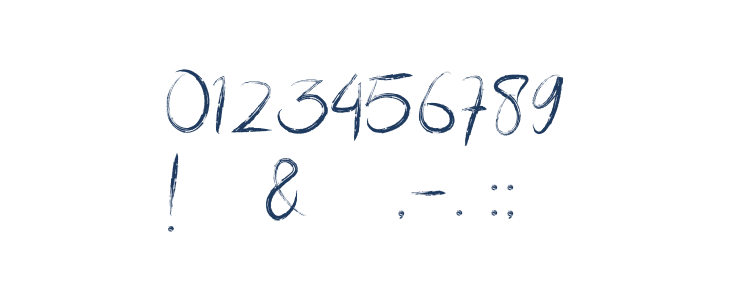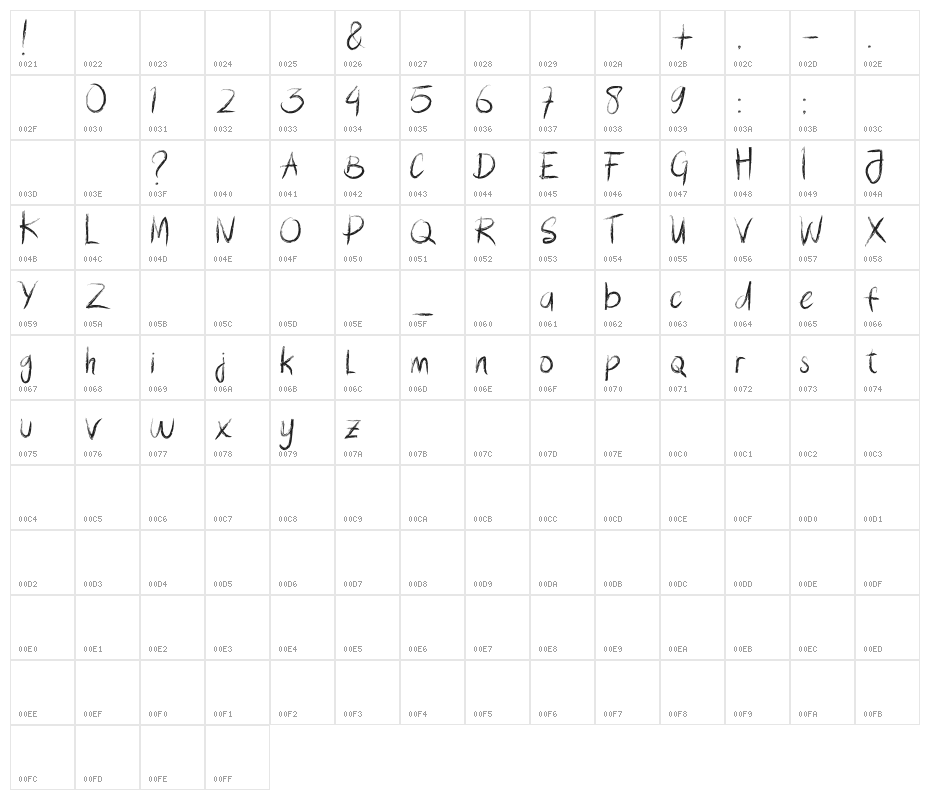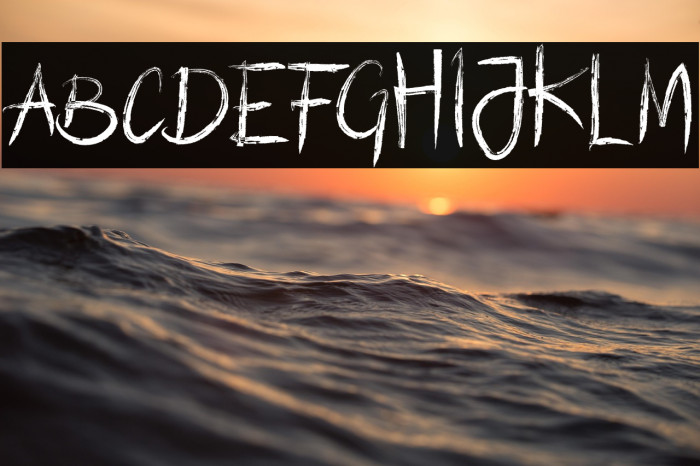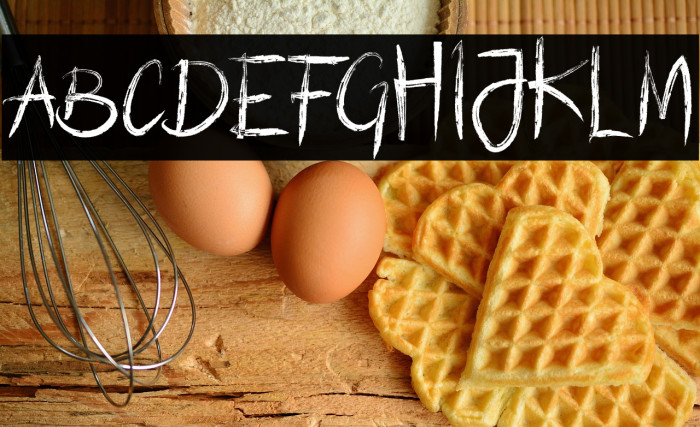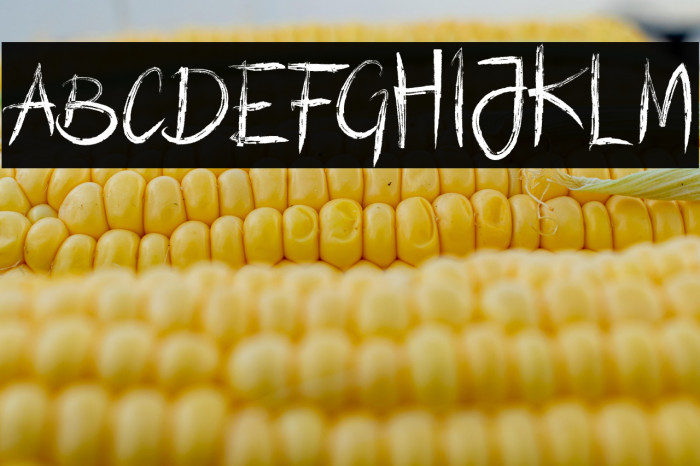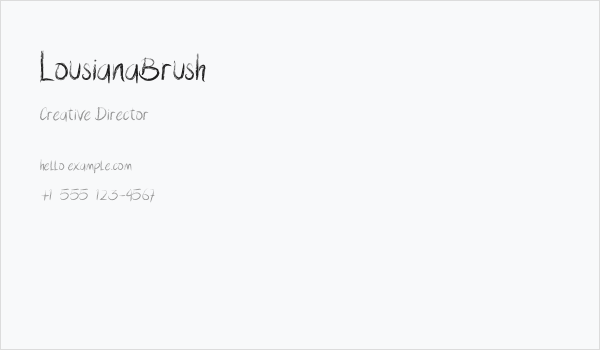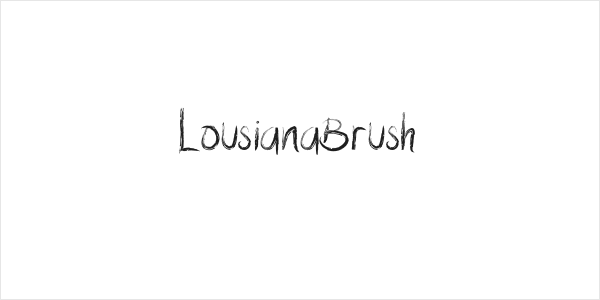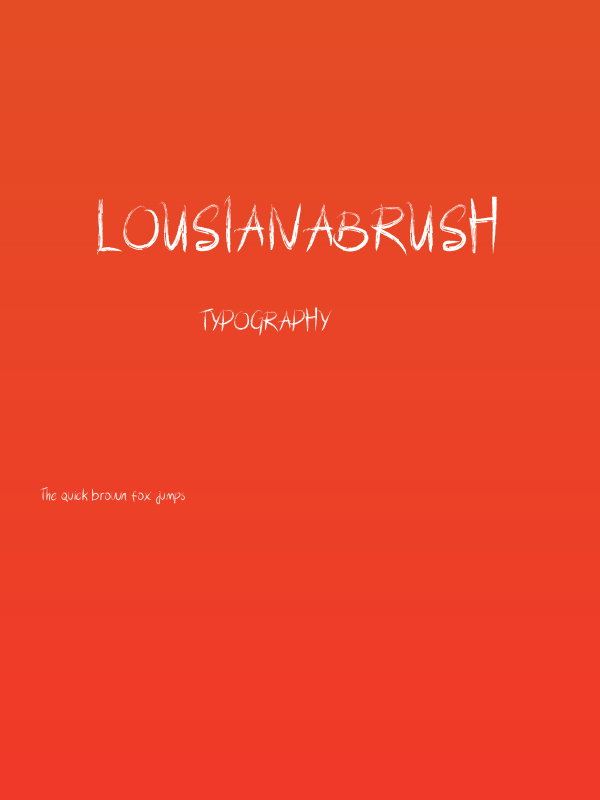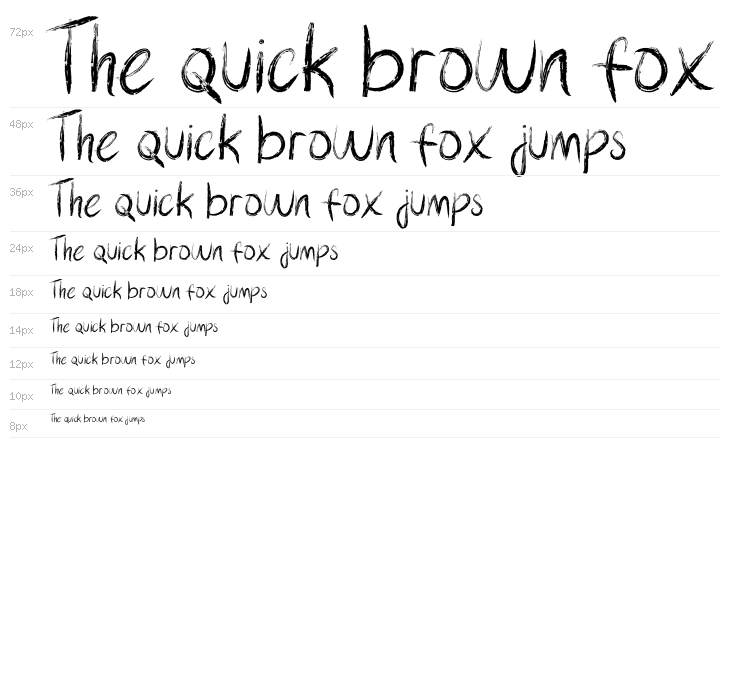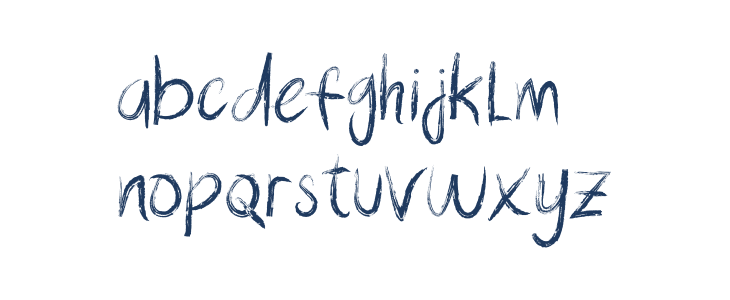
LousianaBrush Font
LousianaBrush Description
This font features a dynamic and expressive brush style, characterized by its bold and energetic strokes. Each letter is crafted with a sense of movement, giving it a lively and artistic appearance. The uppercase and lowercase letters maintain a consistent flow, while the numbers and special characters complement the overall aesthetic. The texture of the strokes adds a hand-painted feel, making it ideal for creative and informal designs. The font's unique style captures attention and conveys a sense of creativity and spontaneity.
Proposed ProjectsIdeal for artistic projects, branding, posters, and invitations that require a creative and lively touch.